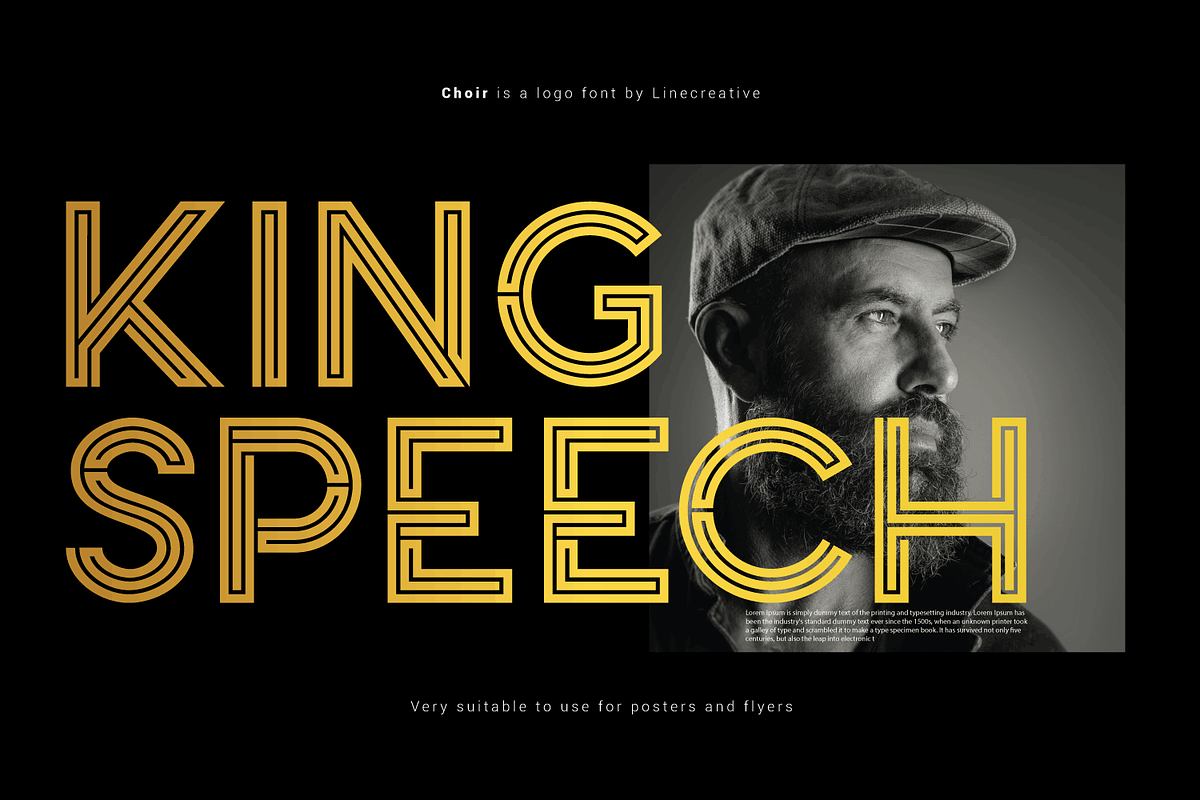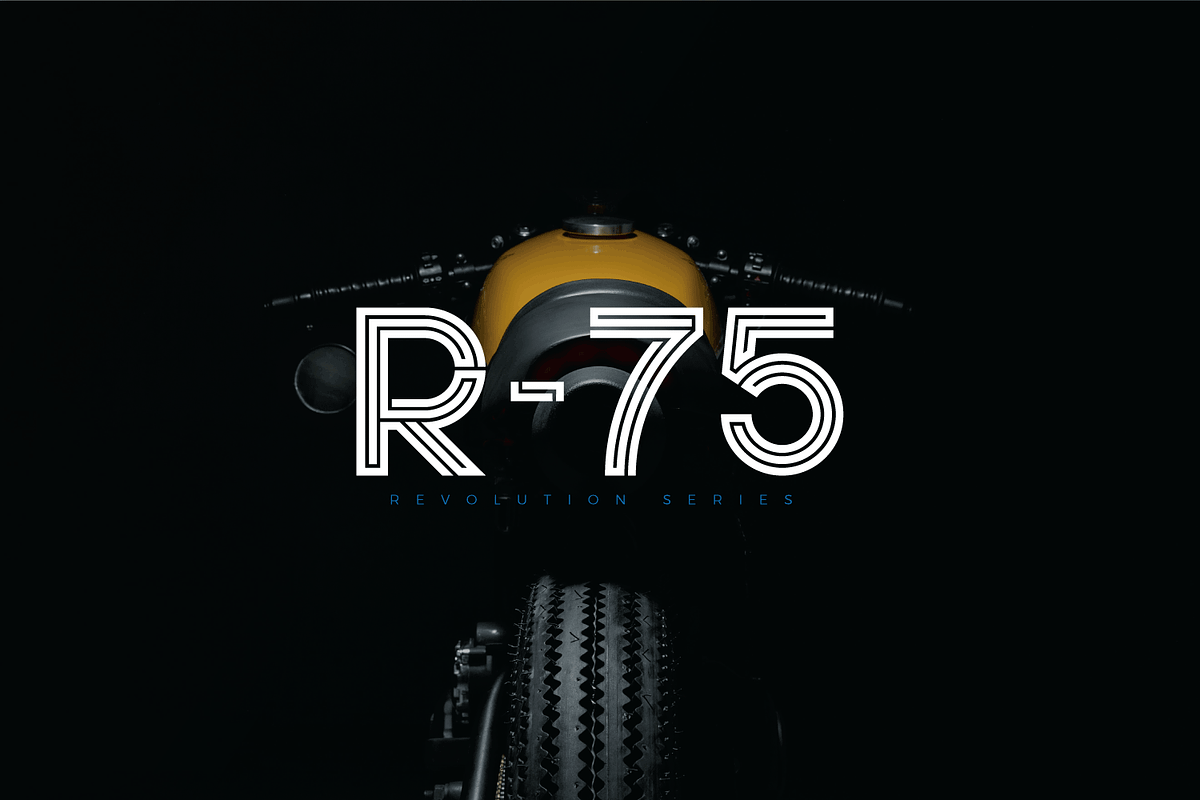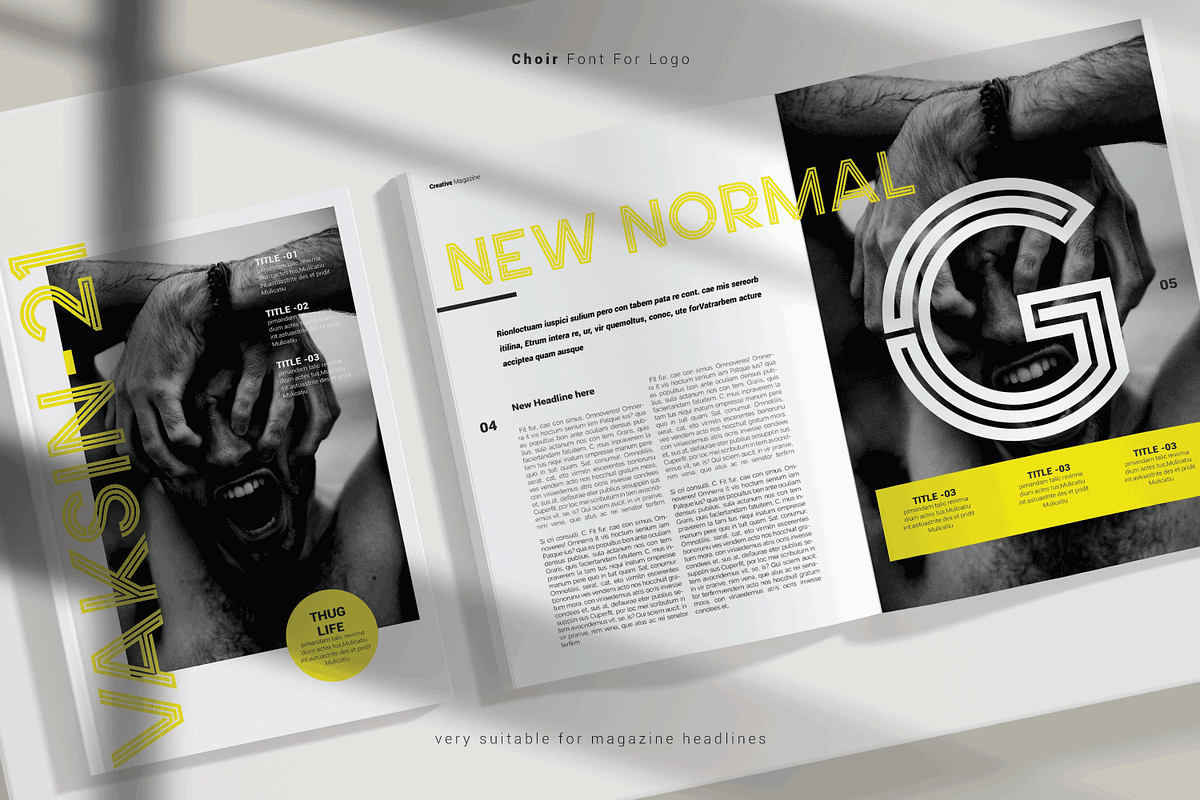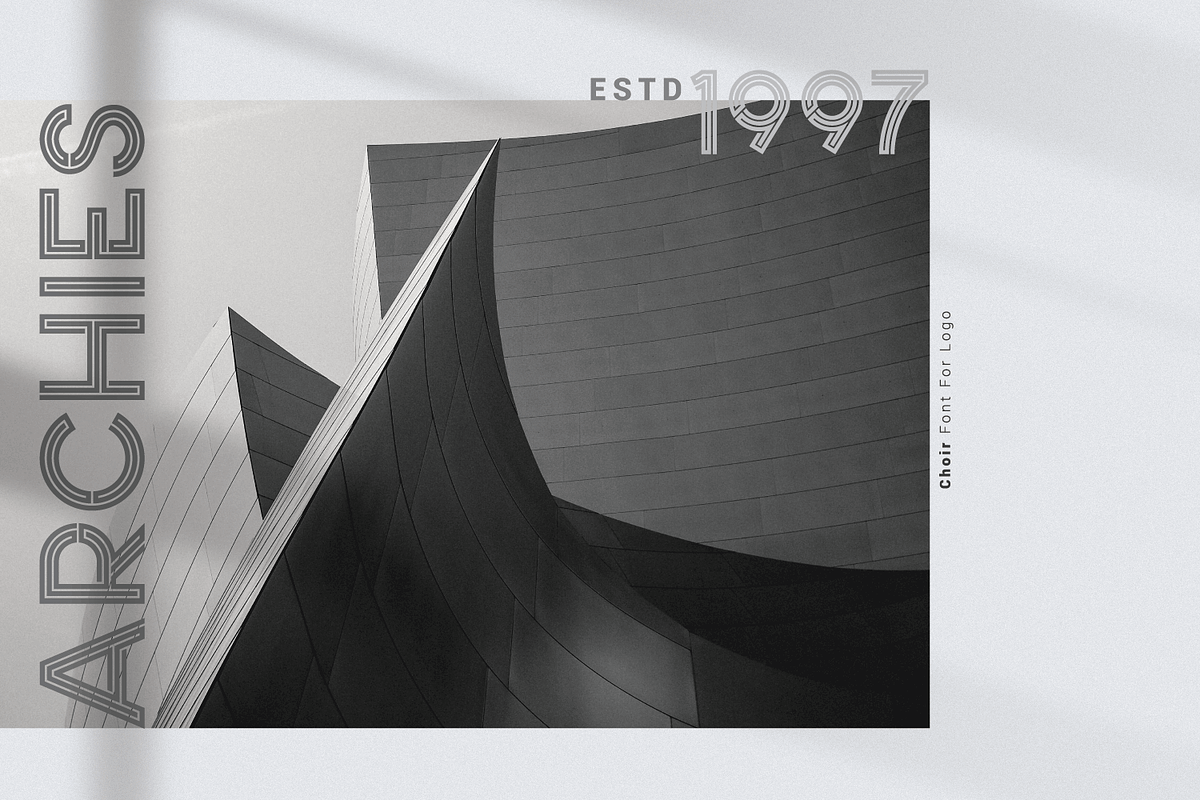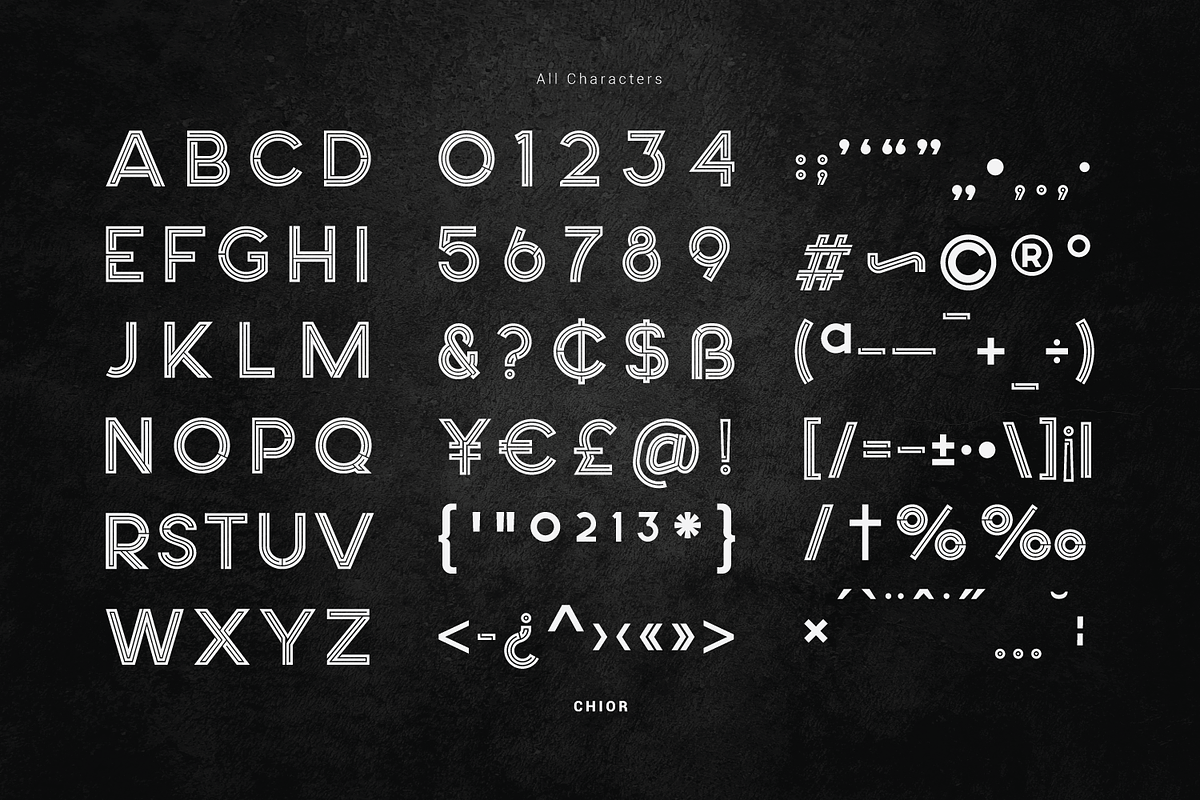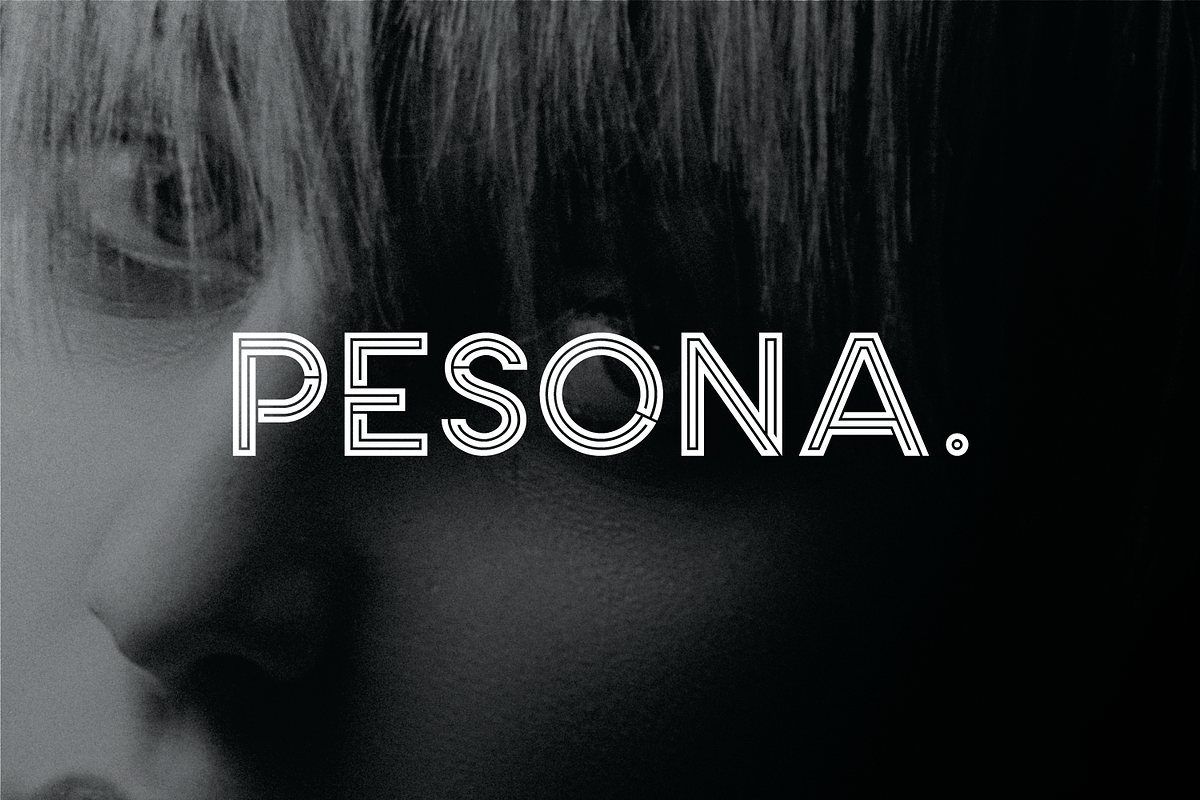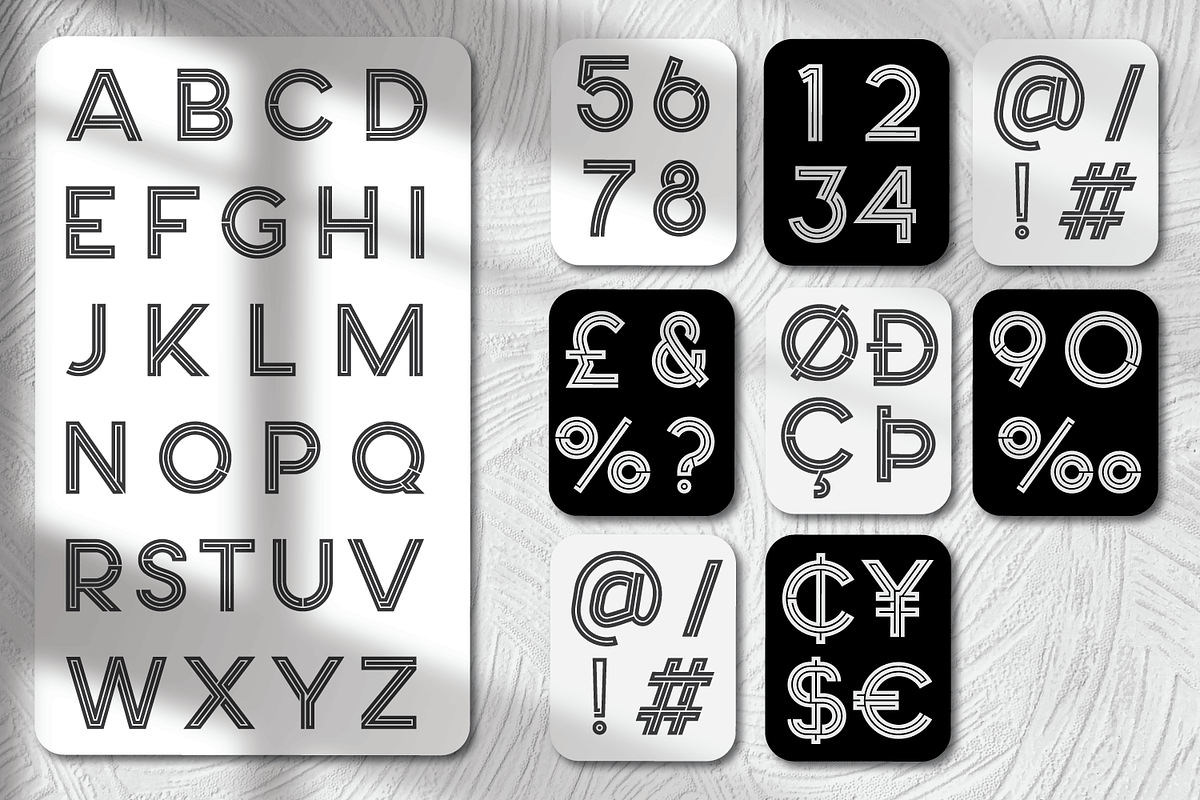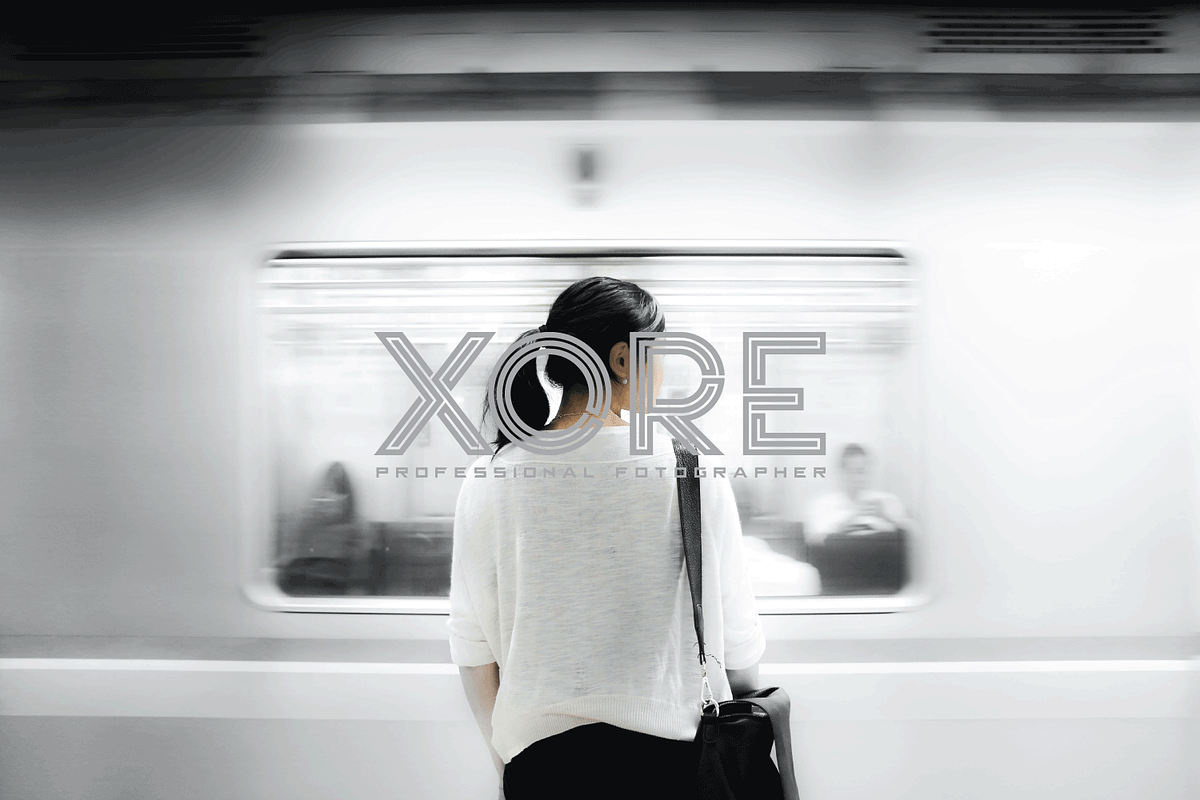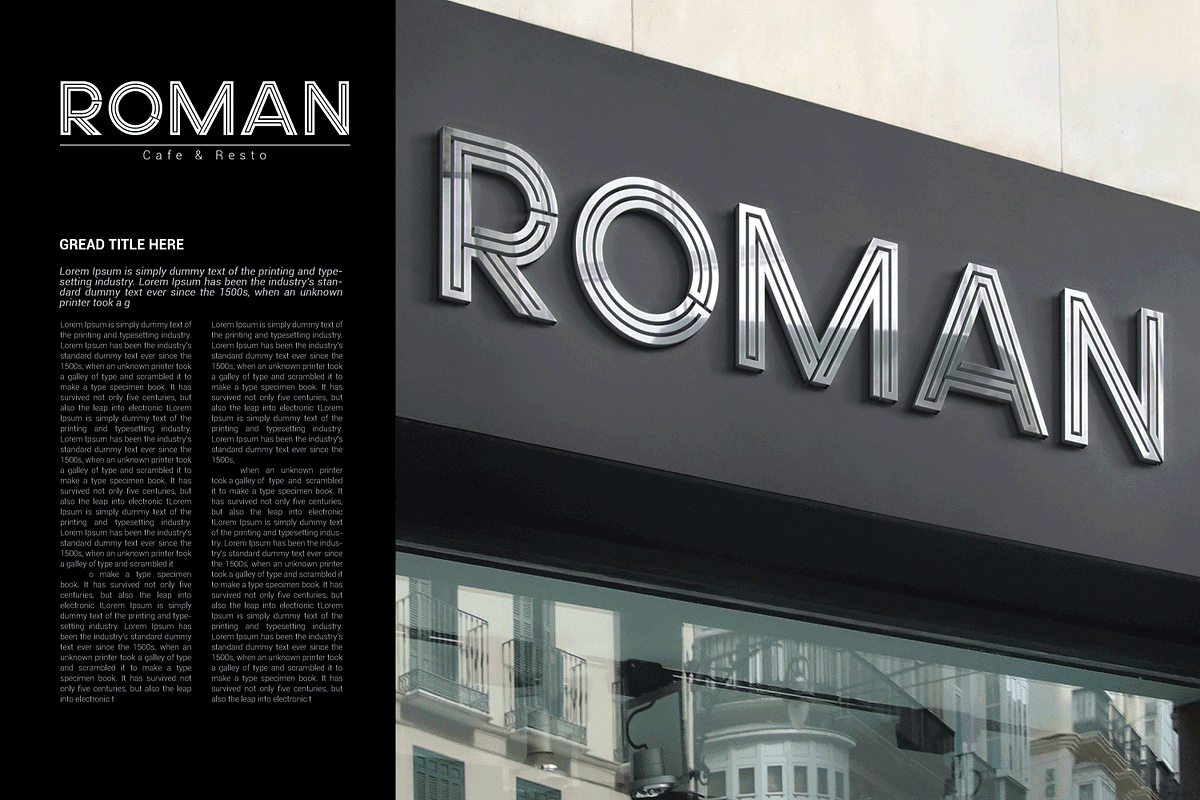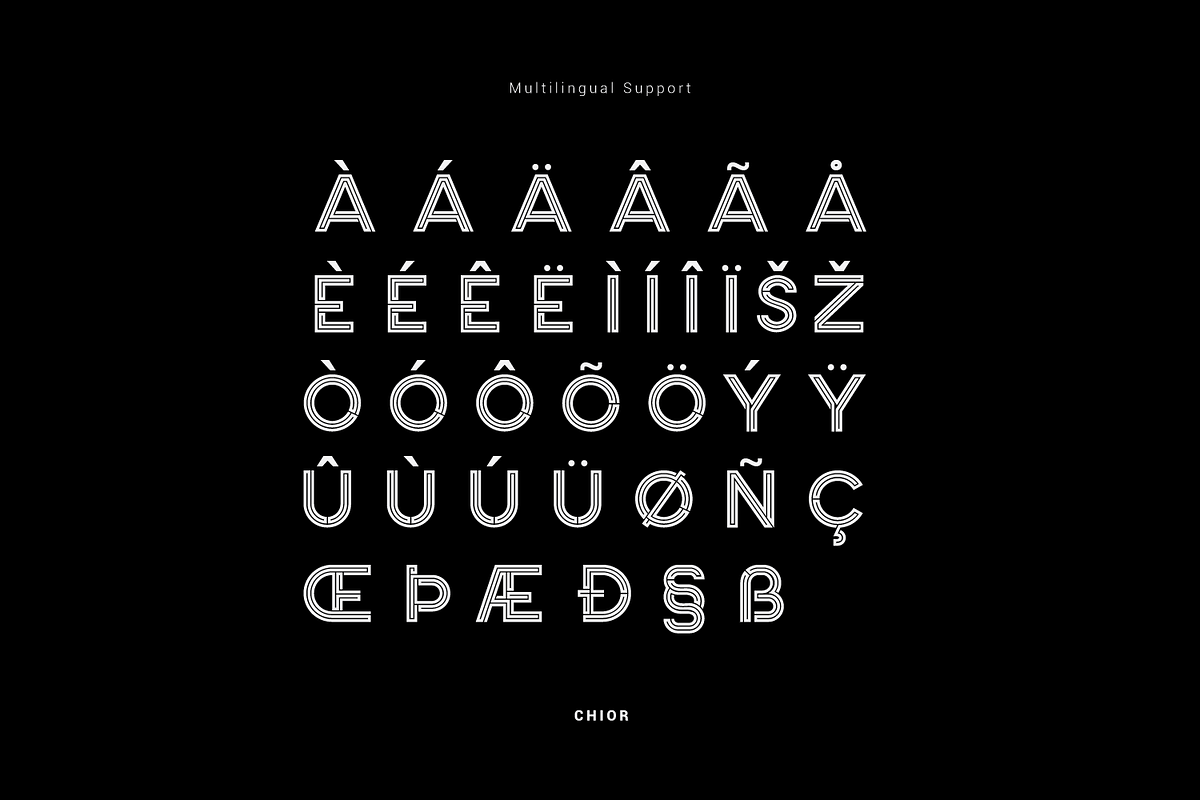
Choir
Choir is a modern sans serif font inspired by labyrinth lines. The design of this font consists of three combined lines that are connected to each other like a maze. This font gives a futuristic, modern impression to your design. This font is perfect for logos, business cards, magazine headers, Flyer Titles, or large-scale oven artwork.